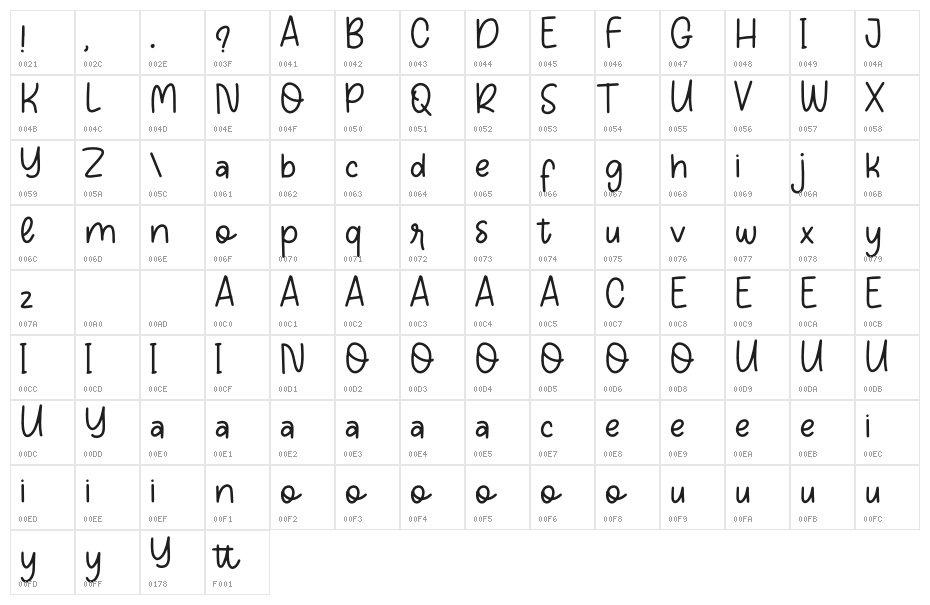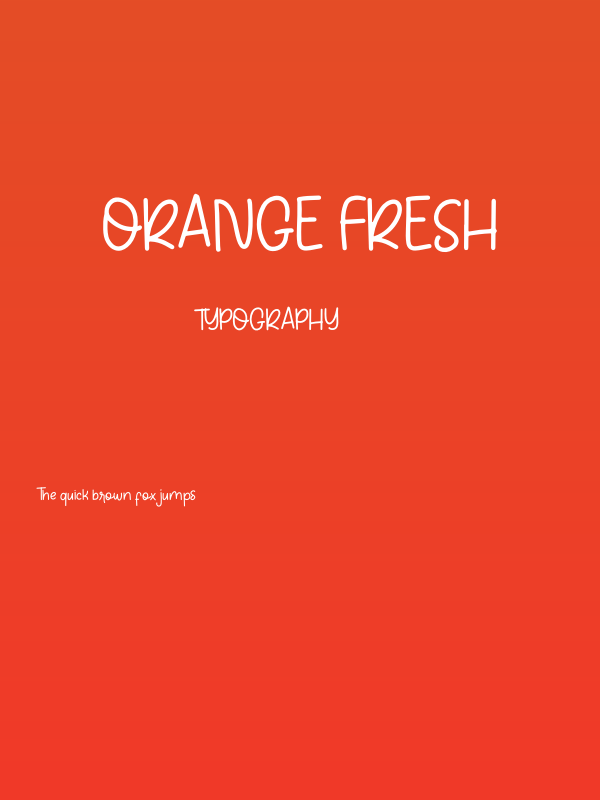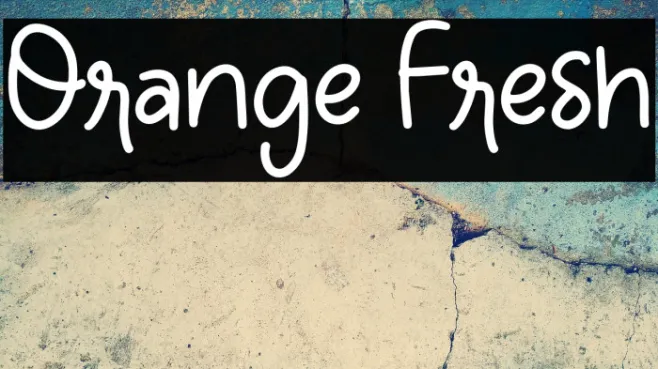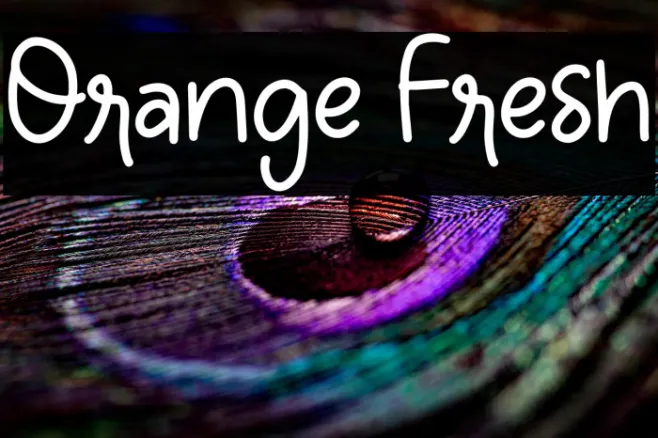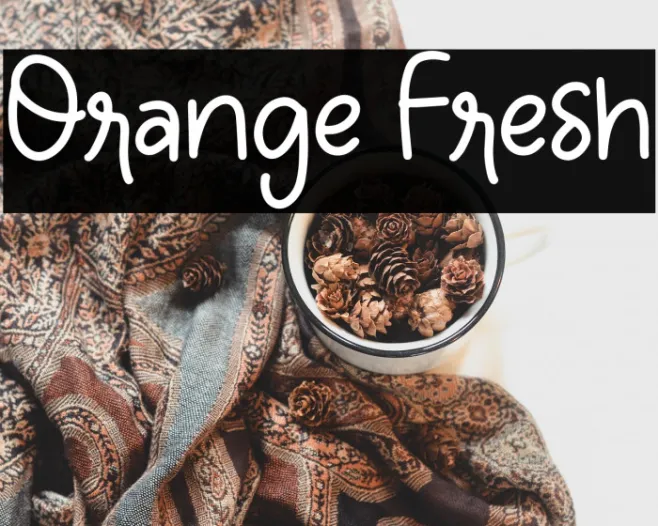
Orange Fresh Font
Orange Fresh Description
This playful and energetic font features a handwritten style with a casual and friendly appearance. The letters are slightly irregular, giving it a natural and organic feel. The uppercase characters are bold and rounded, while the lowercase letters maintain a consistent flow with a slightly whimsical touch. The font's overall appearance is approachable and lively, making it suitable for projects that require a personal and informal tone. The spacing between characters is balanced, ensuring readability while maintaining its unique style.
| Use Case | Headlines, Informal text, Branding |
| Proposed Projects | Ideal for greeting cards, children's books, playful branding, and social media graphics. |